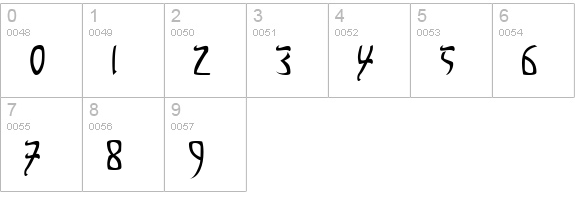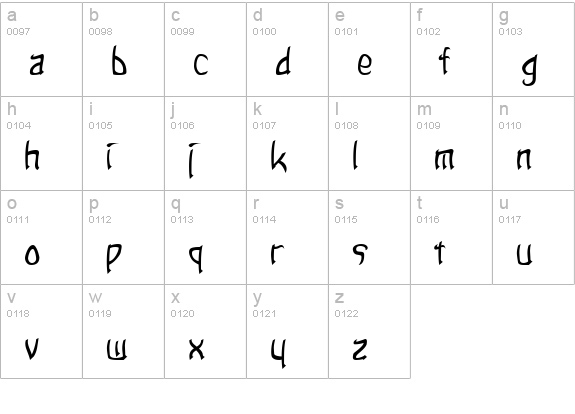
Sands of Fire Normal Font Details
Sands of Fire Normal is the standard, neutral variant in the Sands typeface family \xE2\x80\x94 well suited to general body text, paragraphs, and standard typographic work.
The Sands of Fire Normal font is a stunning typeface that exudes a captivating elegance and a fiery allure. Its unique design features meticulously crafted letterforms that embody the essence of heat, passion, and intensity. With its smooth curves and sharp edges, this font is perfect for adding a touch of sophistication and drama to any design project. Whether used for headlines, titles, or body text, Sands of Fire Normal captivates the reader's attention and leaves a lasting impression. The versatility of this font allows it to seamlessly blend with various design styles, from modern and futuristic to vintage and rustic. Its legibility ensures ease of reading, while its bold presence commands attention. What makes Sands of Fire Normal even more appealing is the fact that it is freely available to download at FontsMarket.com. This means that designers, creatives, and enthusiasts can access this remarkable font without any cost, making it an invaluable resource for any project. So, if you're looking to add a touch of fire and flare to your designs, Sands of Fire Normal is the perfect choice. Download it today from FontsMarket.com and unleash the power of this captivating font.